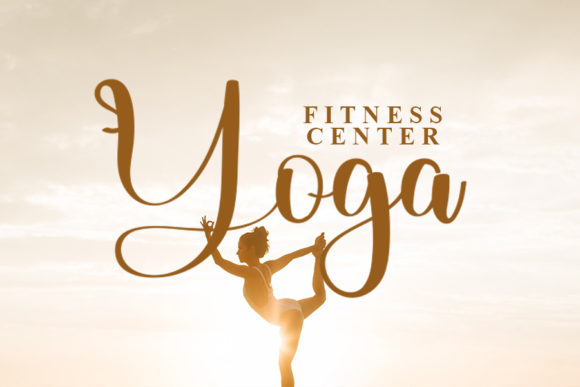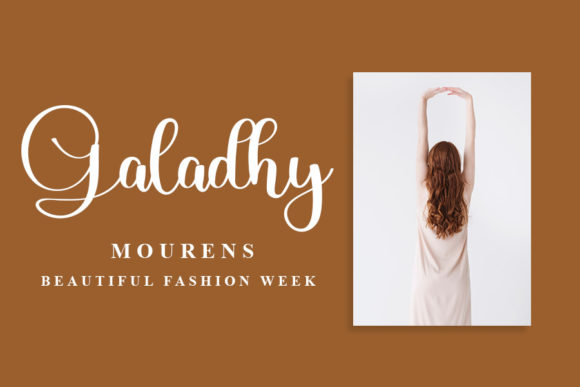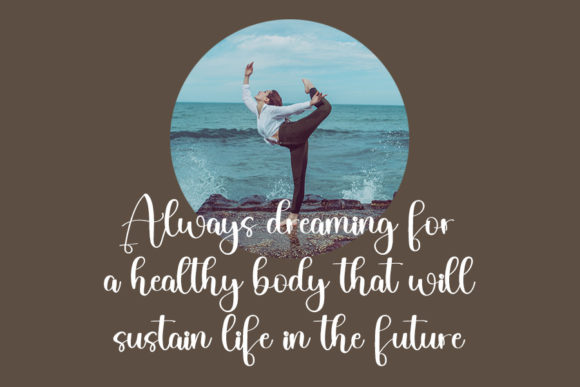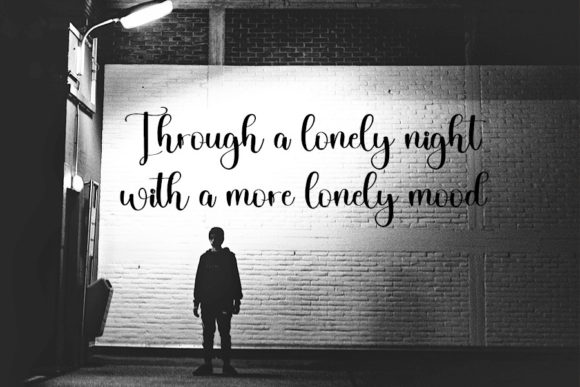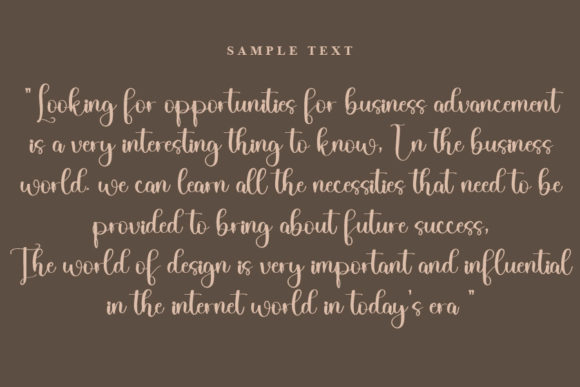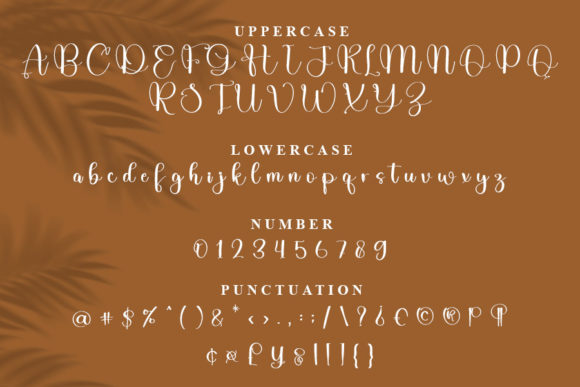
The Designer’s Delight: Abouttalk Font
Have you ever been in the middle of a design project, and suddenly, you’re stuck on finding the perfect font? I recall a recent experience where I was working on a branding project for a boutique client, and I just couldn’t find a font that captured the essence of their elegant yet modern vibe. That’s when I stumbled upon the Abouttalk font, and it was love at first sight! 💕
A Personal Review of Abouttalk Font
As a designer, I’m always on the lookout for fonts that can elevate my projects. Here’s my honest review of Abouttalk:
- ✨ Timeless Elegance: Abouttalk is a stylish handwritten font that exudes a sense of classic calligraphy with a modern twist.
- ✅ Versatility: The font is balanced and varied, making it perfect for a wide range of projects, from branding and advertising to packaging and digital media.
- 💫 Impeccable Form: The attention to detail in Abouttalk is impressive, with each letterform carefully crafted to create a sense of fluidity and harmony.
While Abouttalk is an exceptional font, there are a few minor quirks to be aware of:
- ⚠️ Glyph Limitations: Some users have reported that the font could benefit from a more extensive glyph set, particularly for non-English languages.
- 🤔 Kerning Issues: As with any font, some users may experience kerning issues, especially when using the font at smaller sizes.
The Designer Inspiration Behind Abouttalk
Abouttalk font was inspired by the timeless beauty of classic calligraphy. The designer aimed to create a font that would capture the essence of traditional lettering while infusing it with a modern twist. The result is a stylish, handwritten font that exudes elegance and sophistication.
Q: What type of projects is Abouttalk font best suited for?
A: Abouttalk font is versatile and can be used for a wide range of projects, including branding, advertising, packaging, and digital media.
Q: Is Abouttalk font suitable for body text?
A: While Abouttalk is a beautiful font, it’s best used for headlines and titles. For body text, you may want to choose a more legible font.